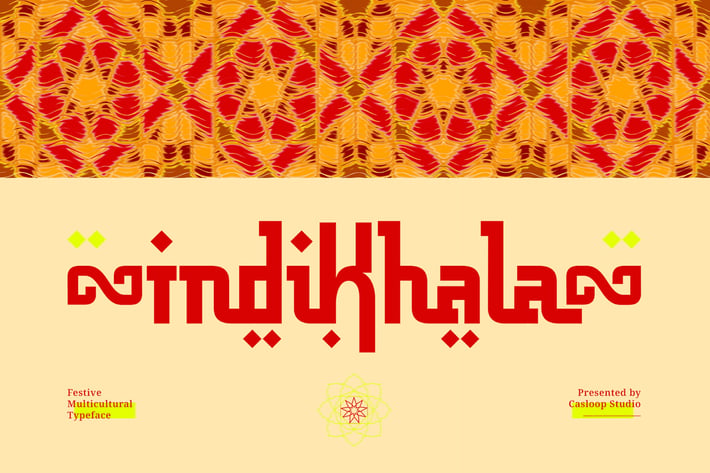
Indikhala - Arabic Eid Ramadan Typeface
Introducing Indikhala: Celebrate Ramadhan with Blazing Colors and Traditions!
Indikhala, a festive and multicultural Middle East inspired font, brings the luminous and gentle essence of Ramadhan Kareem, guru nanak, dussehra, navratri, dussehra ayudha puja, karva chauth, raksha bandhan, visakhi, to your designs. Its unique monoline style, combined with contrasting weights, captures the eccentric and quirky spirit of the celebration. Ornate and decorative, Indikhala adds an artistic and expressive touch to websites, packaging, logos, posters, and social media posts, making every project stand out with class and originality.
Experience the superiority of Indikhala's experimental design, crafted to make your designs stand out in the celebration of traditions. This font family, available in high to minimal contrast variants, embodies the festive mood with blazing colors. From Quranic verses to social media posts, Indikhala offers versatility, ensuring your projects radiate with the warmth of a bonfire and the richness of Indian devnagri fire.
Indikhala is not just a font; it's a celebration of cultural diversity and expression. With unique characteristics like color powder-inspired letterforms and an array of contrast options, this font is perfect for creating expressive and ornate designs. Prayers, celebrations, and educational materials come to life with Indikhala, capturing the essence of Mecca, the crescent moon, and the serenity of a mosque.